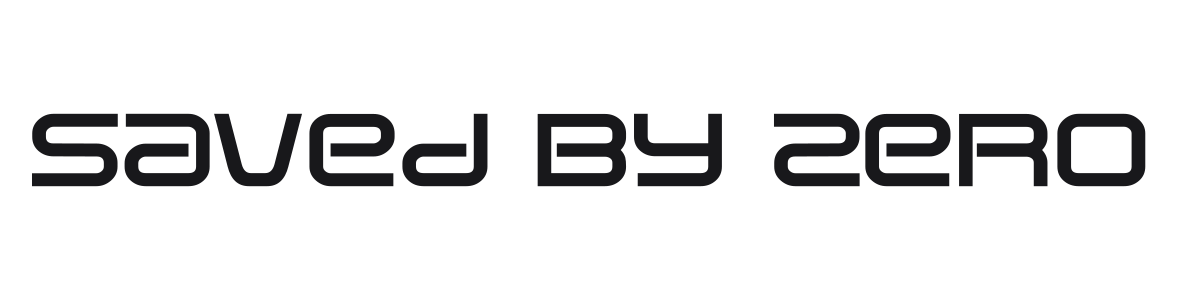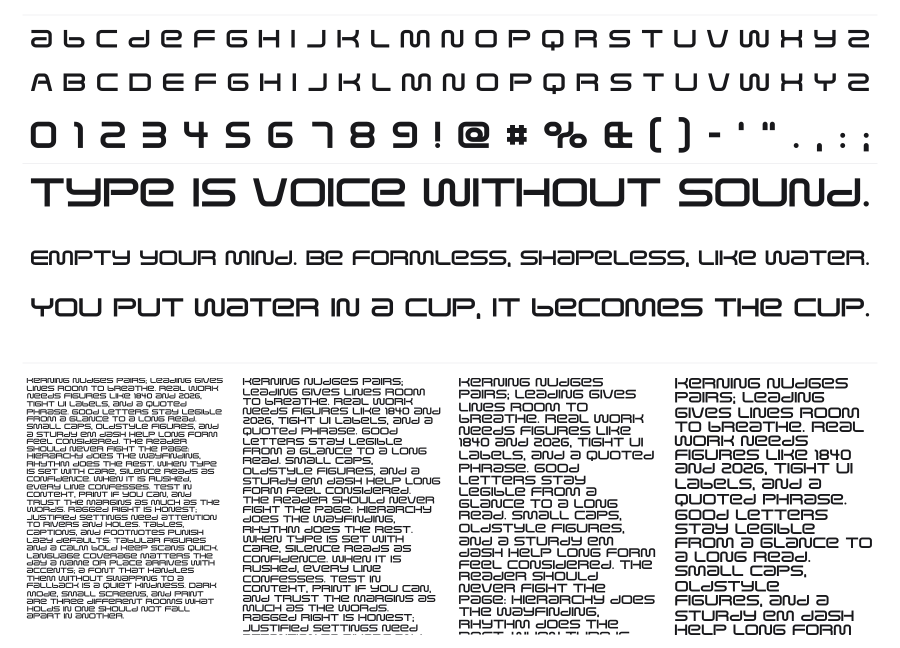
Saved By Zero
Saved By Zero is a wide geometric techno sans from Ray Larabie, built on squared forms with softly rounded interior corners. The monoweight strokes and modular construction give it a distinctly digital, late-1990s character. It reads well at large sizes for headlines, logos, and any project that needs a clean futuristic edge.